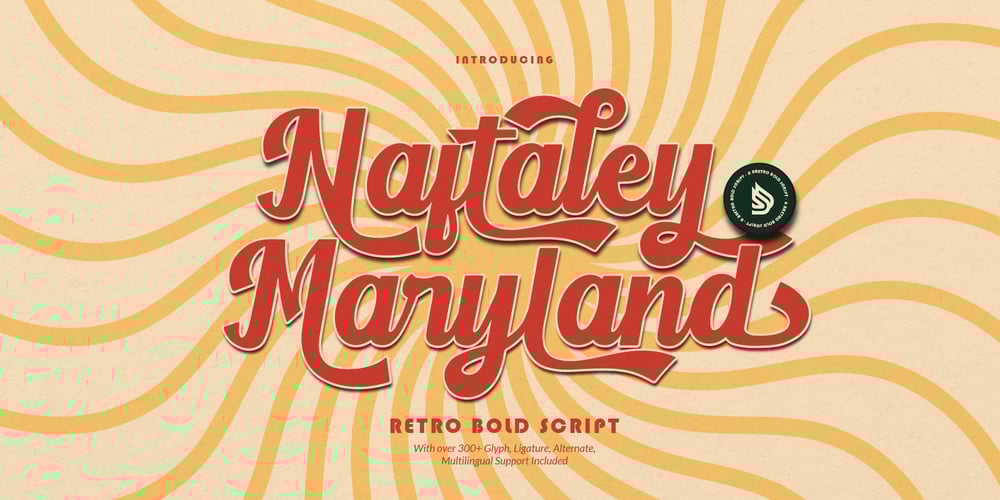
Naftaley Maryland
Naftaley Maryland font
Naftaley Maryland Font Family was designed by Dede Nugraha and published by Denustudio. Naftaley Maryland contains 2 styles and family package options. Naftaley Maryland | Retro Bold Script, from Denustudios, suitable for any projects such as: logos, branding projects, homeware designs, product packaging, mugs, quotes, posters, shopping bags, t-shirts, book covers, name card, invitation cards, greeting cards, label, photography, watermark, special events, and all your other lovely projects that need Retro Bold Script a taste.===========================================================================What’s Included : Regular and Italic Web Font Standard glyphs Alternate and Ligature Works on PC & Mac Simple installations Accessible in the Adobe Illustrator, Adobe Photoshop, Adobe InDesign, even work on Microsoft Word and Other Software. PUA Encoded Characters – Fully accessible without additional design software. Fonts include multilingual support Hope you enjoy with our font!